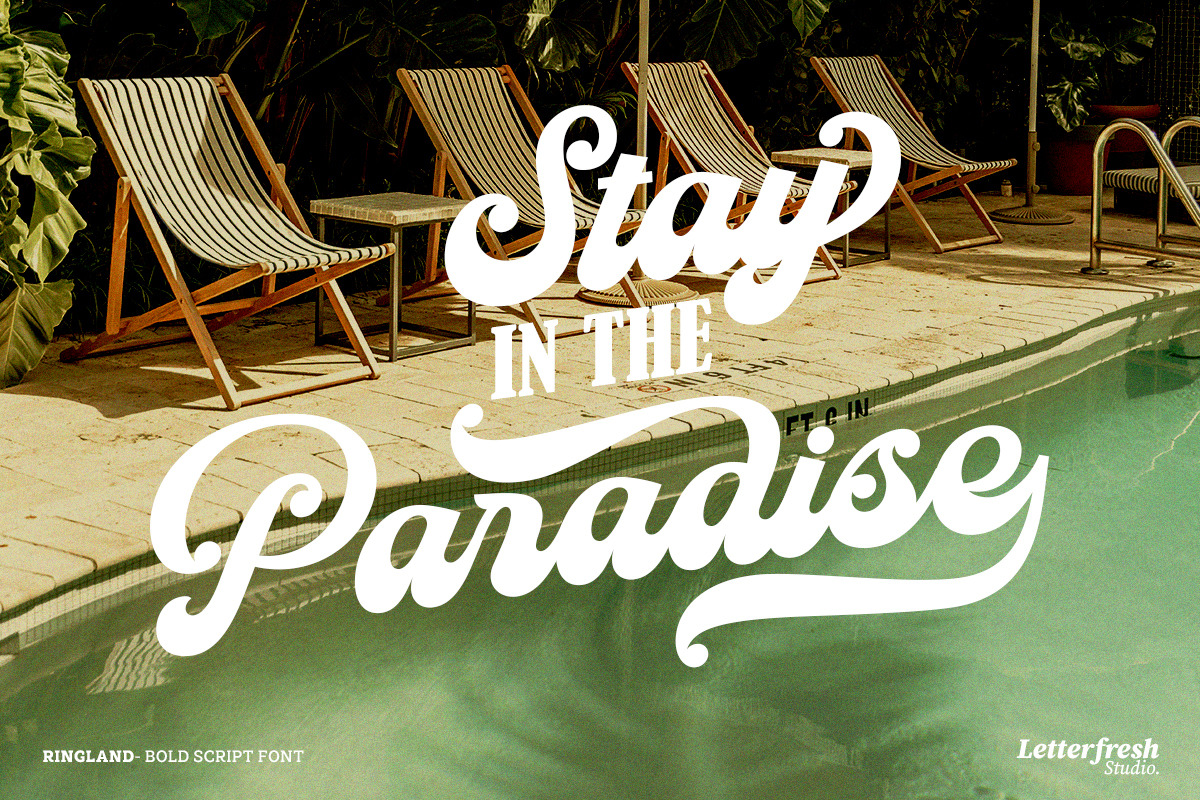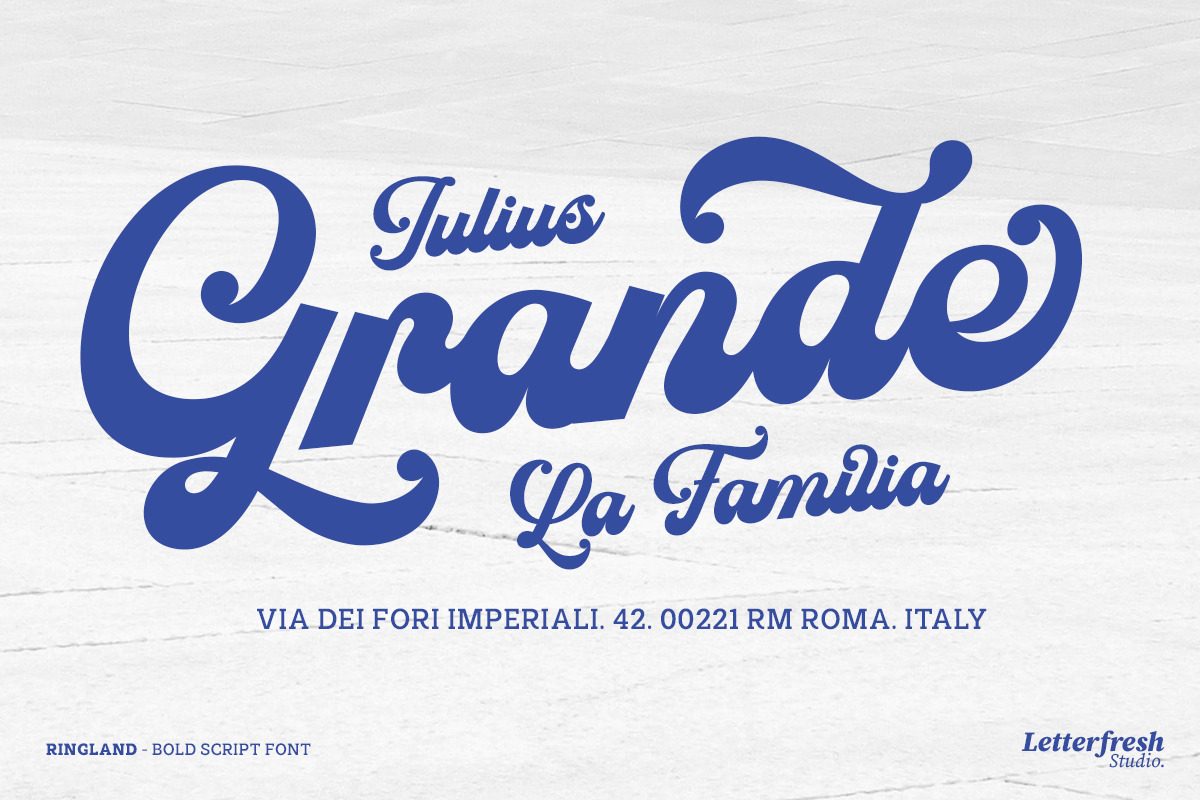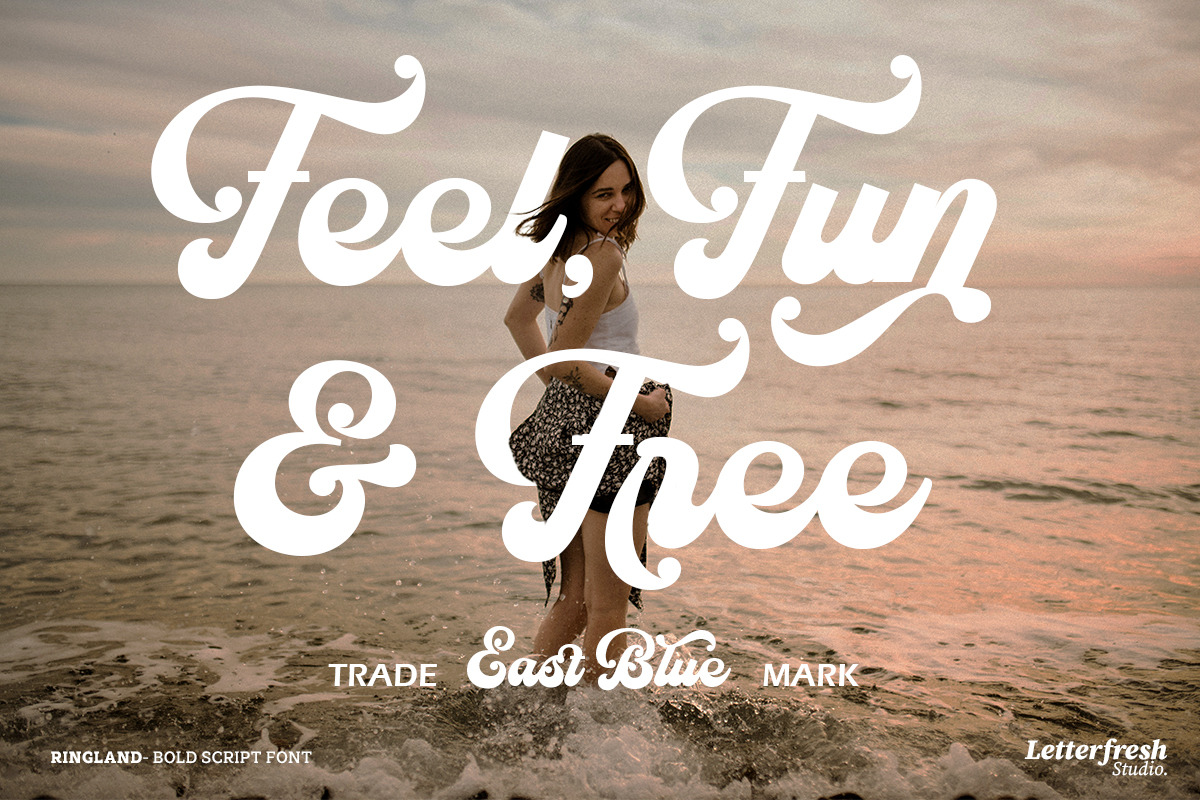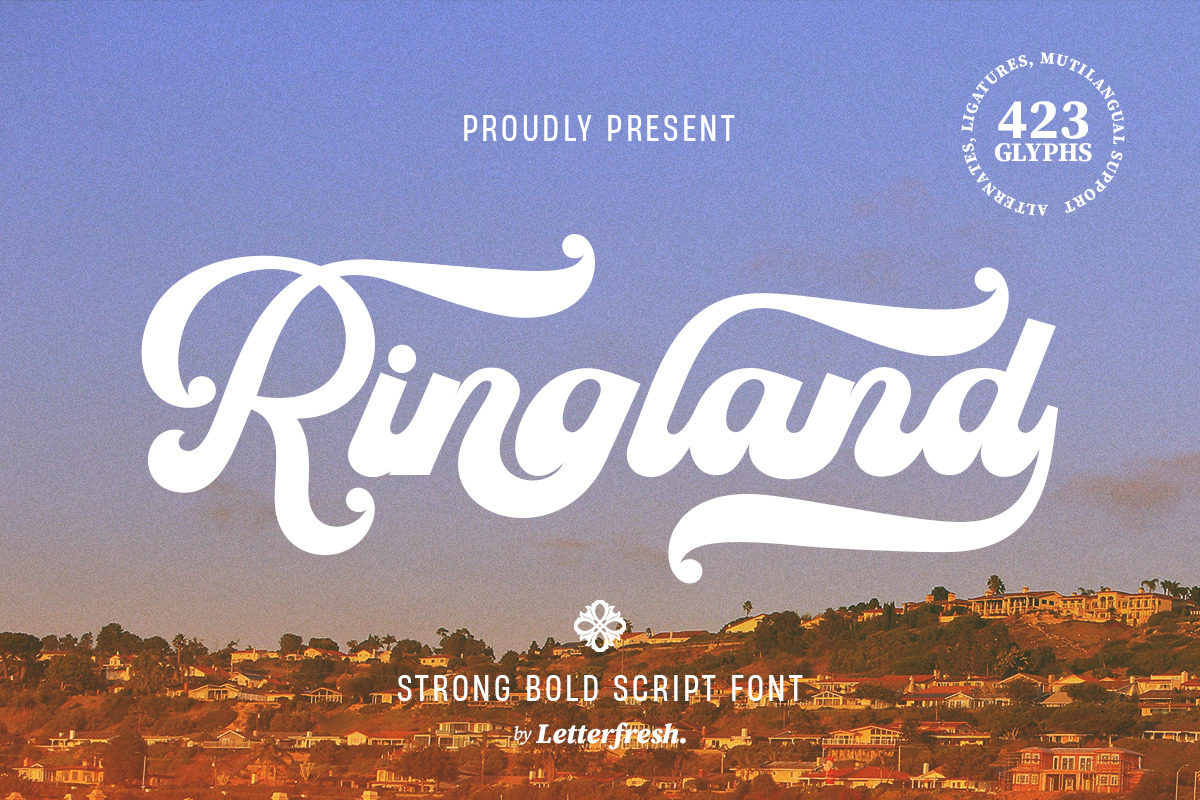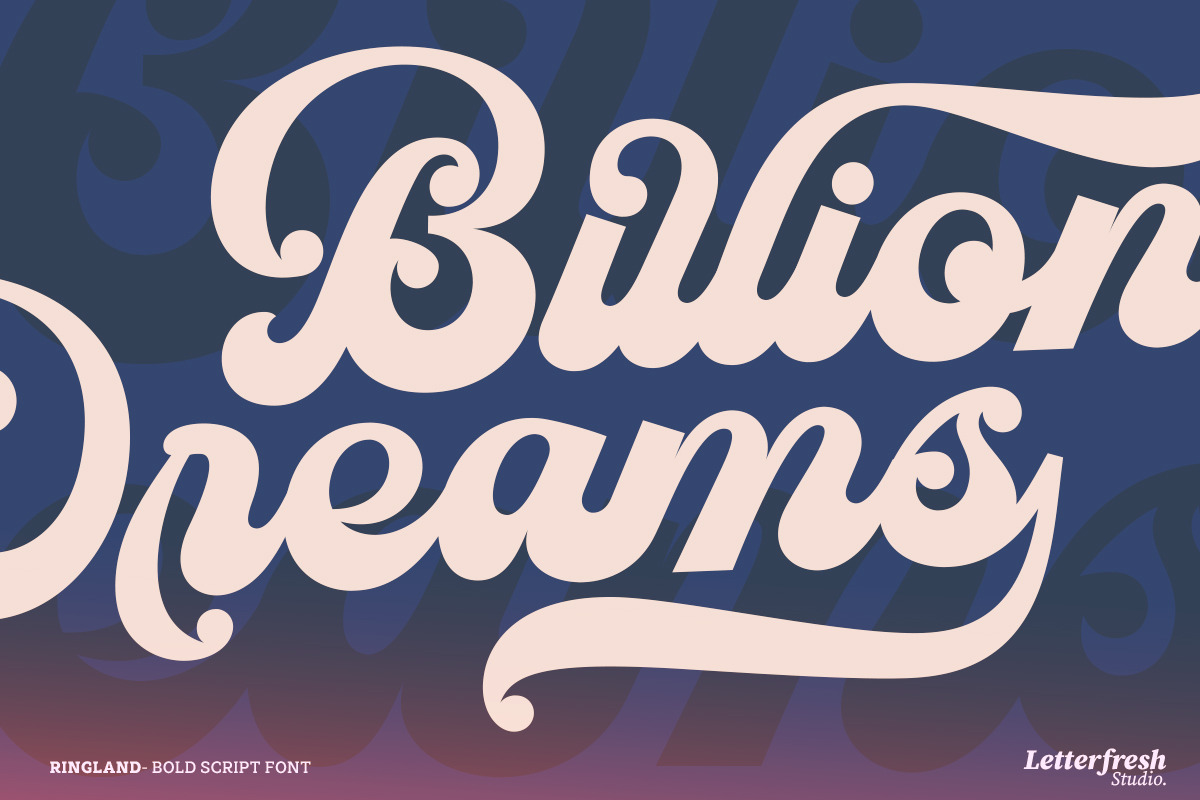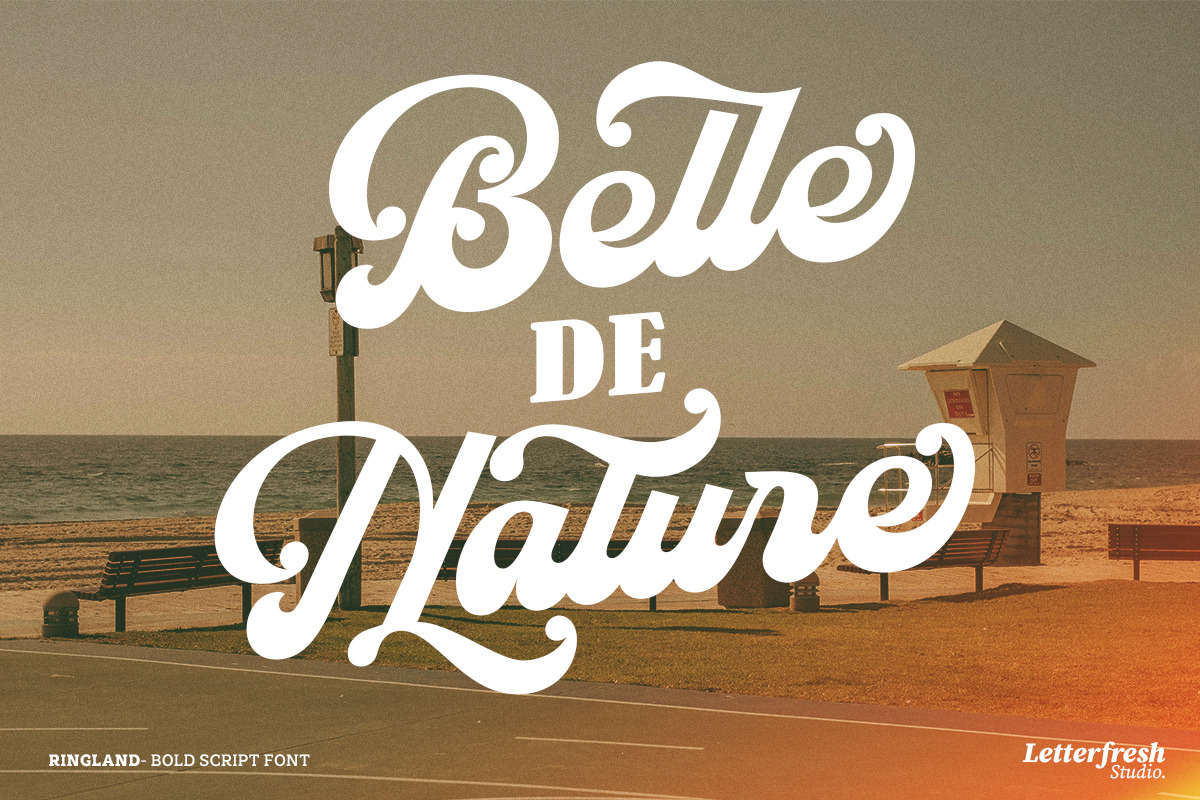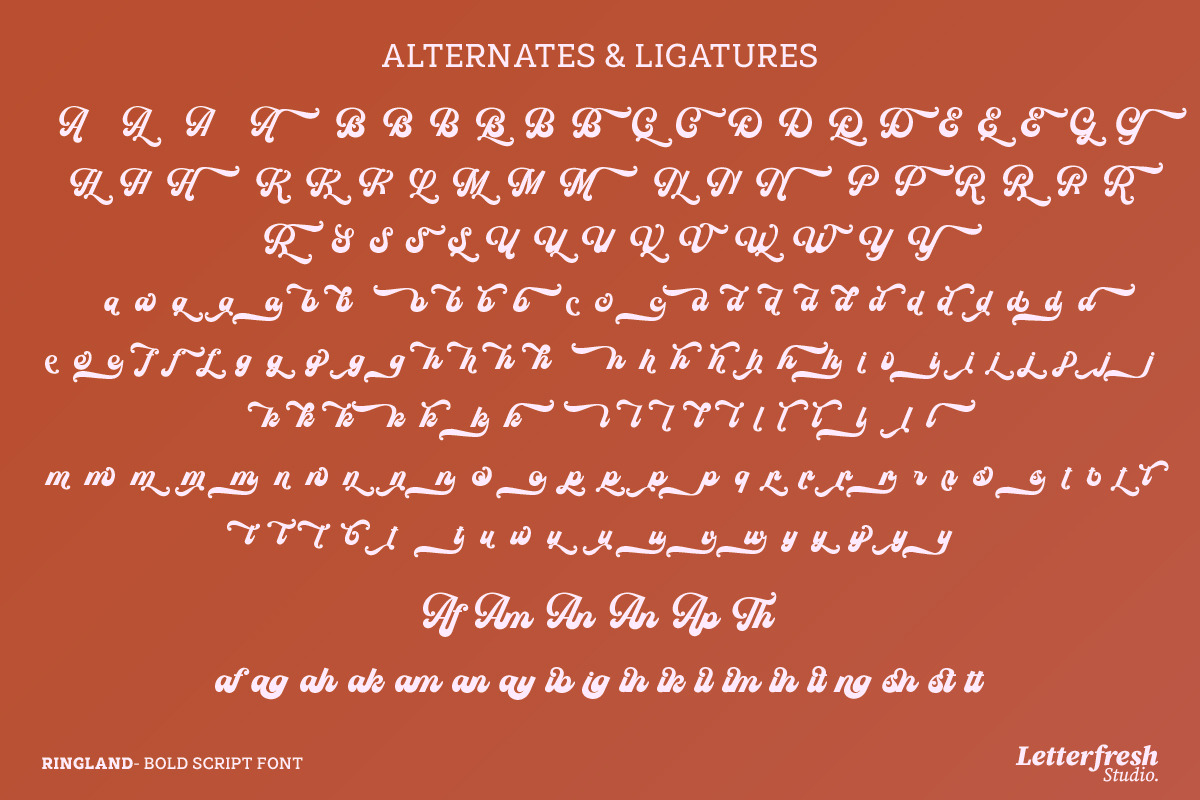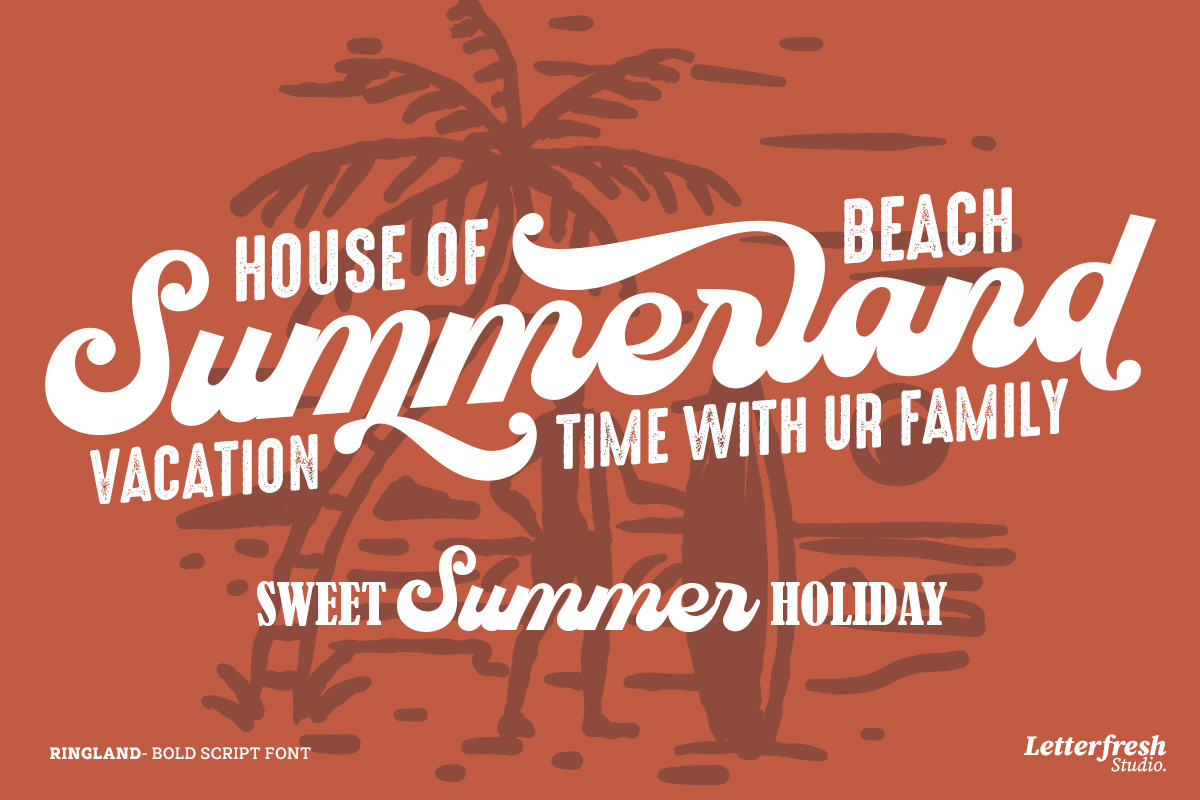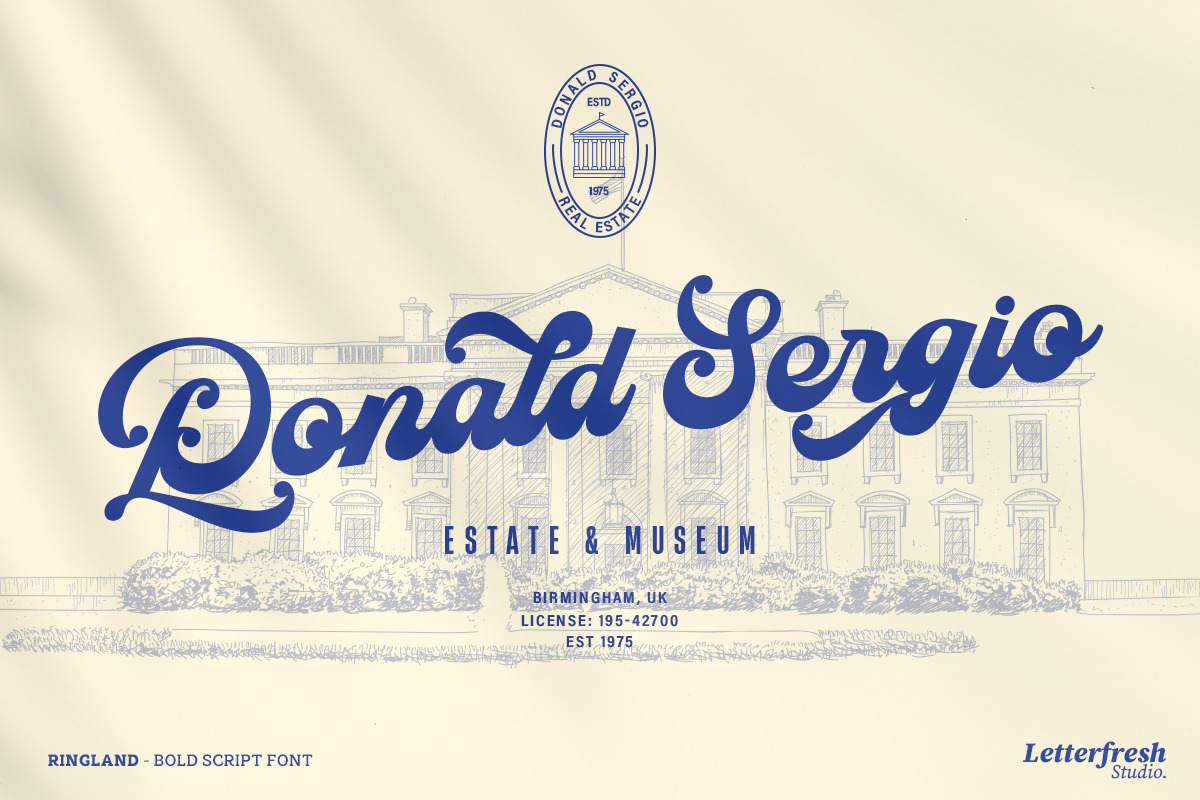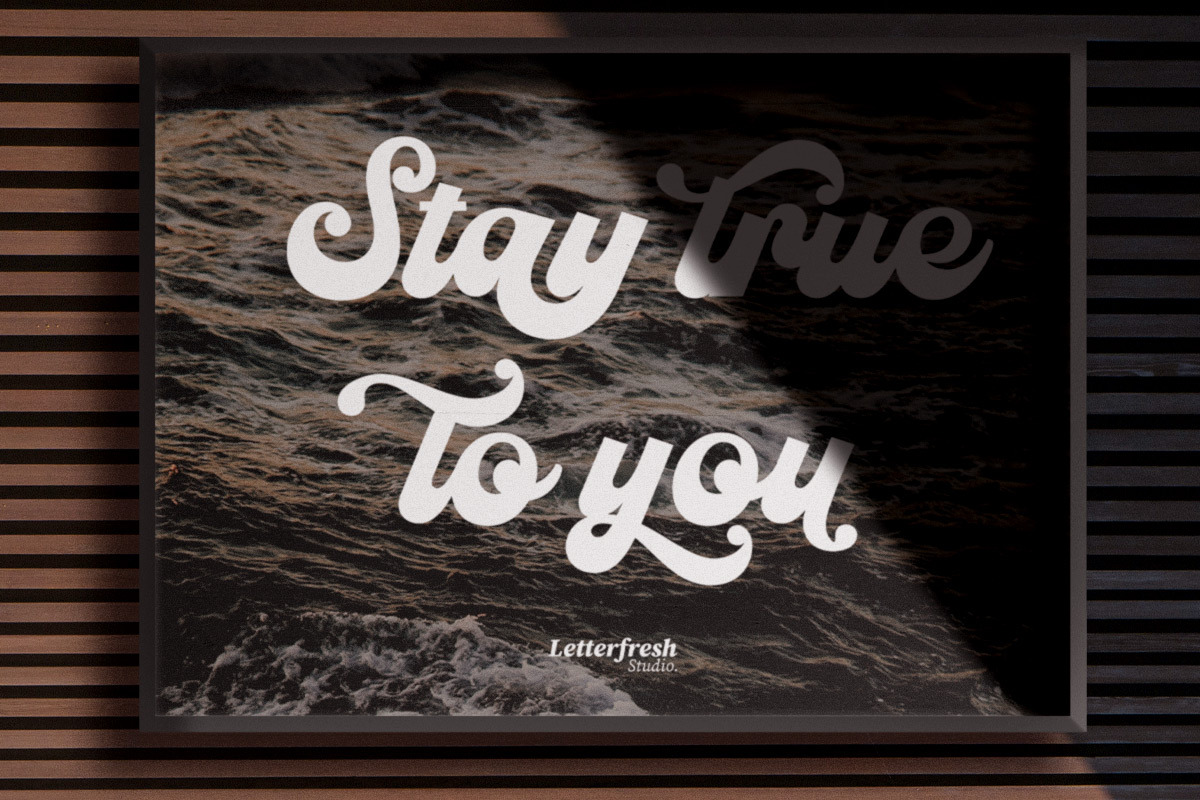
Ringland Script Font
Ringland is a sophisticated and timeless script font, perfect for adding a touch of refinement to projects such as brand identities, elegant invitations, product labels, apparel designs, and more.
With unique stylistic alternates and ligatures integrated into its OpenType features, this font offers incredible flexibility and creative freedom for any design.